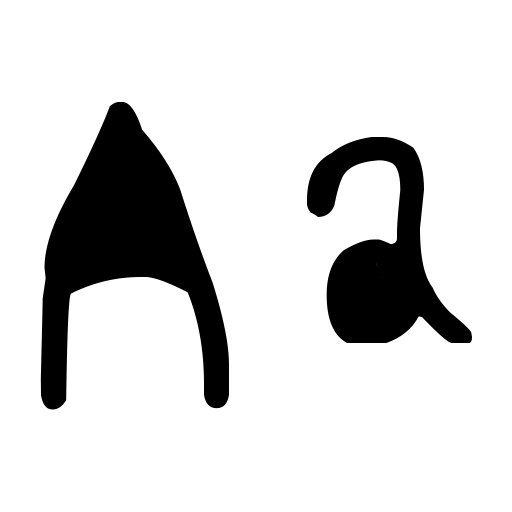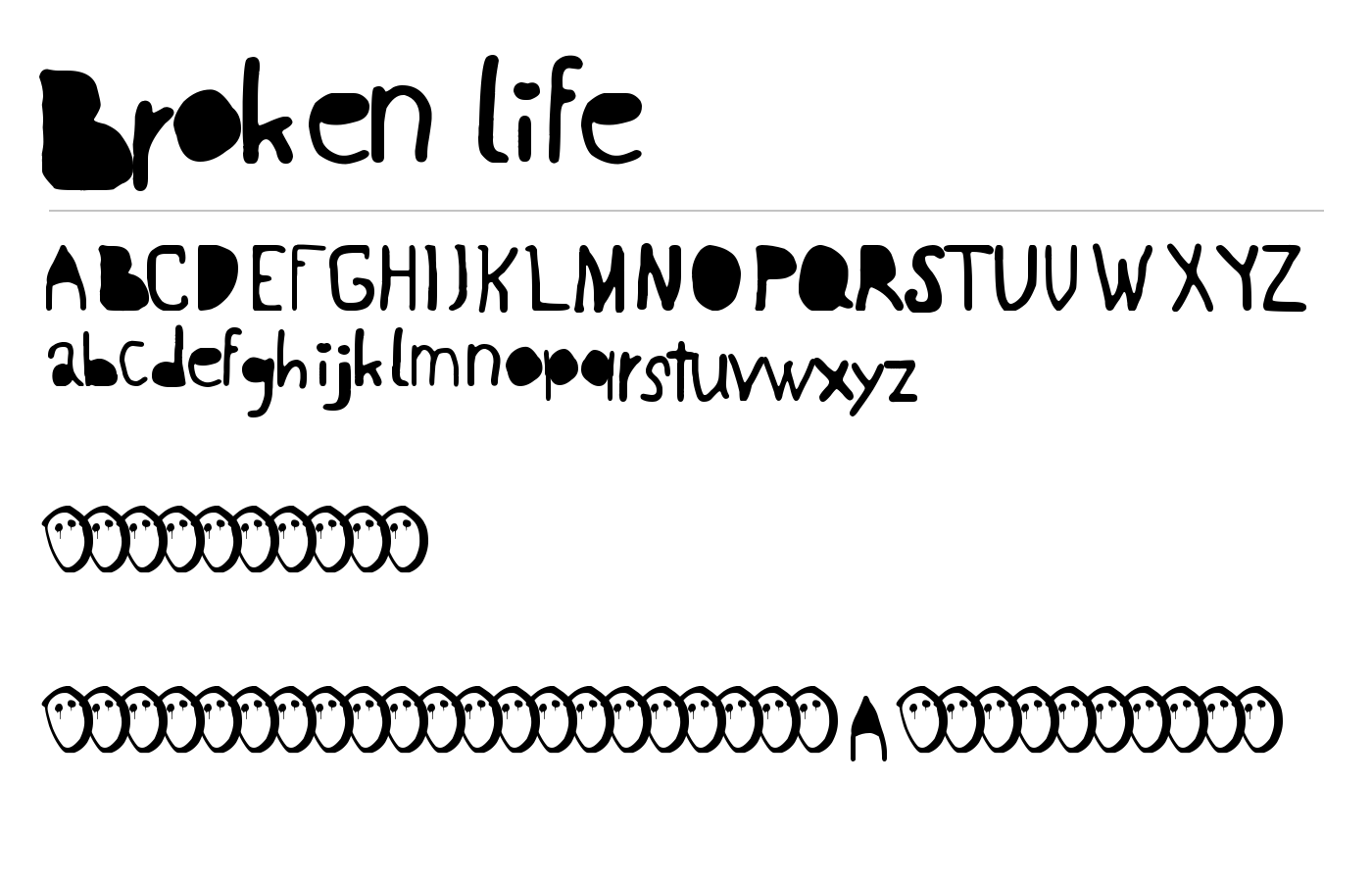
Broken Life is a quirky and playful handwritten sans serif font with an uneven, organic texture that adds a unique, slightly imperfect charm. Its bold, irregular shapes and variable stroke widths give it a raw, artistic feel, perfect for creative projects, informal branding, or designs seeking a distinct, personal touch that stands out.
Broken life Font
About Broken life Font